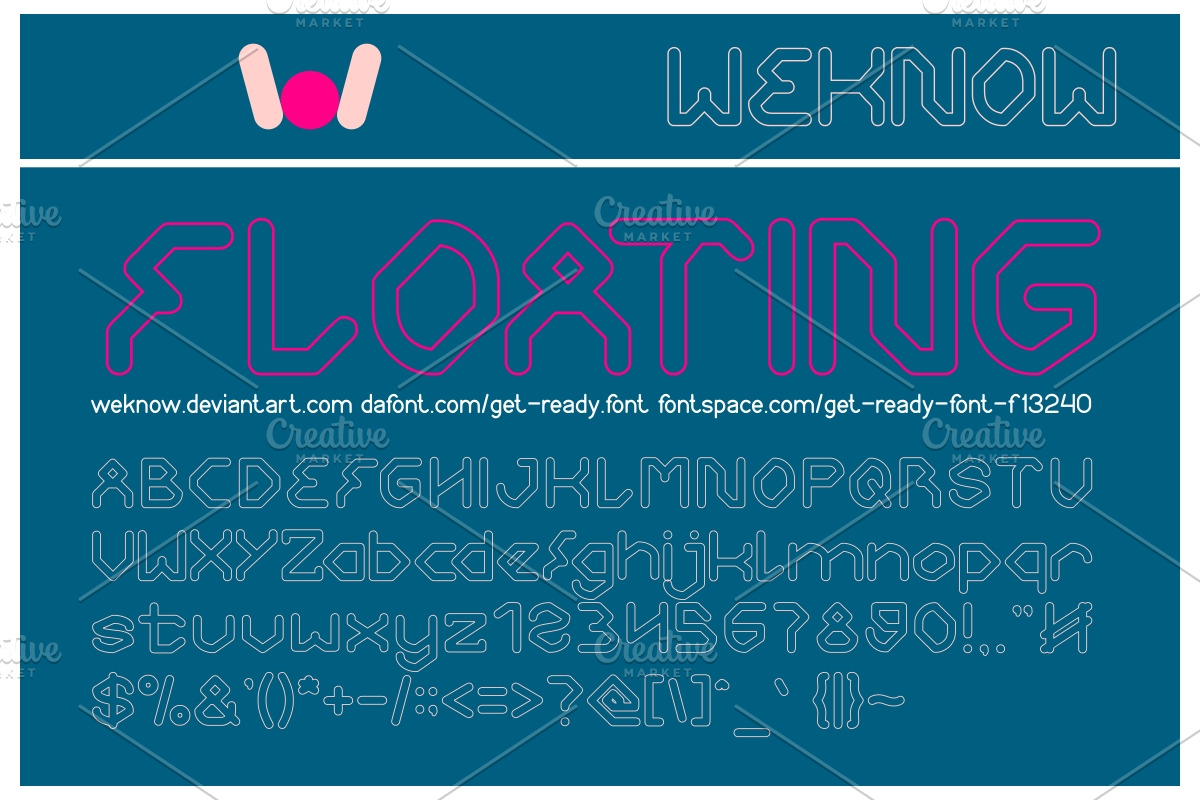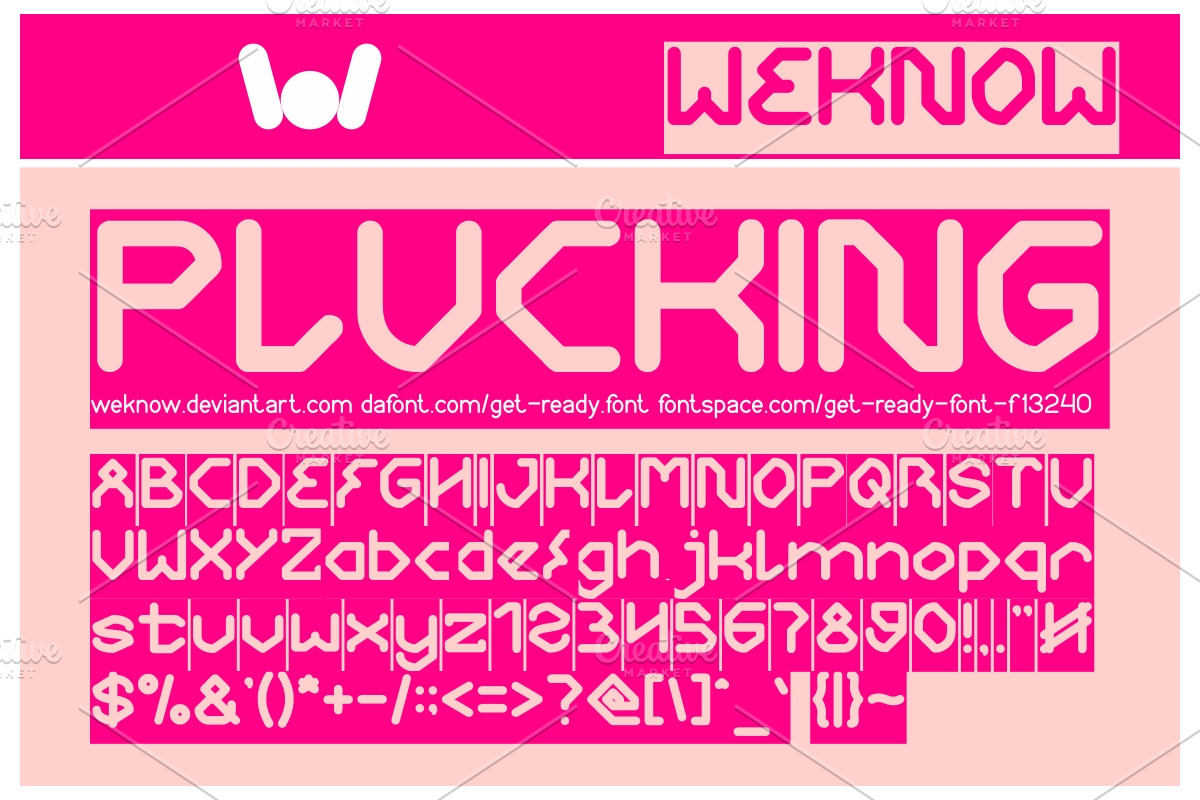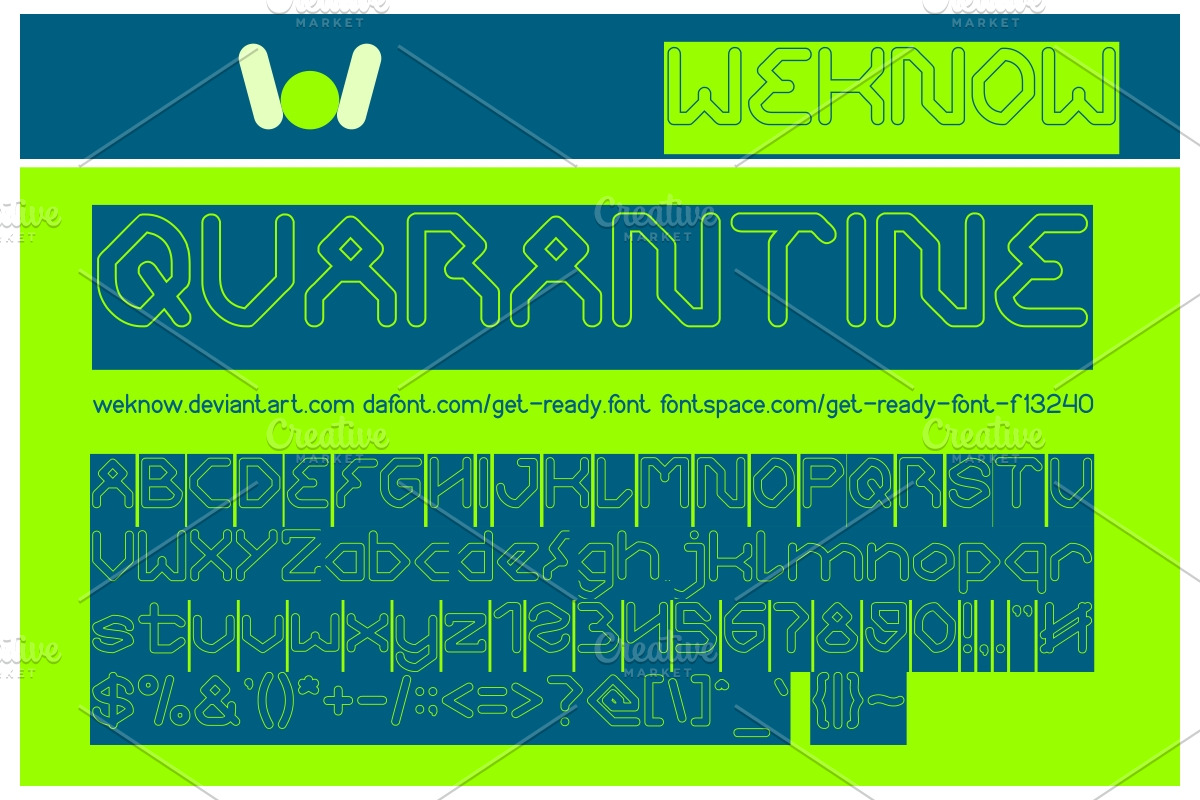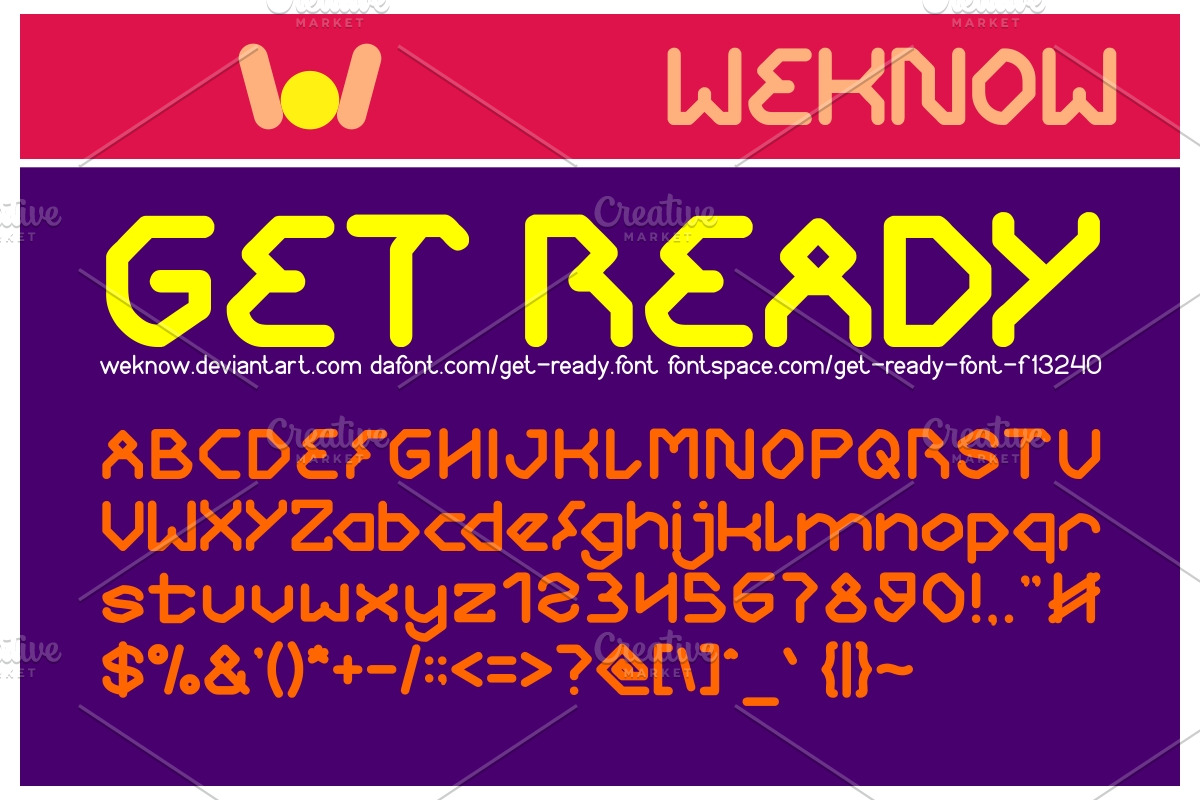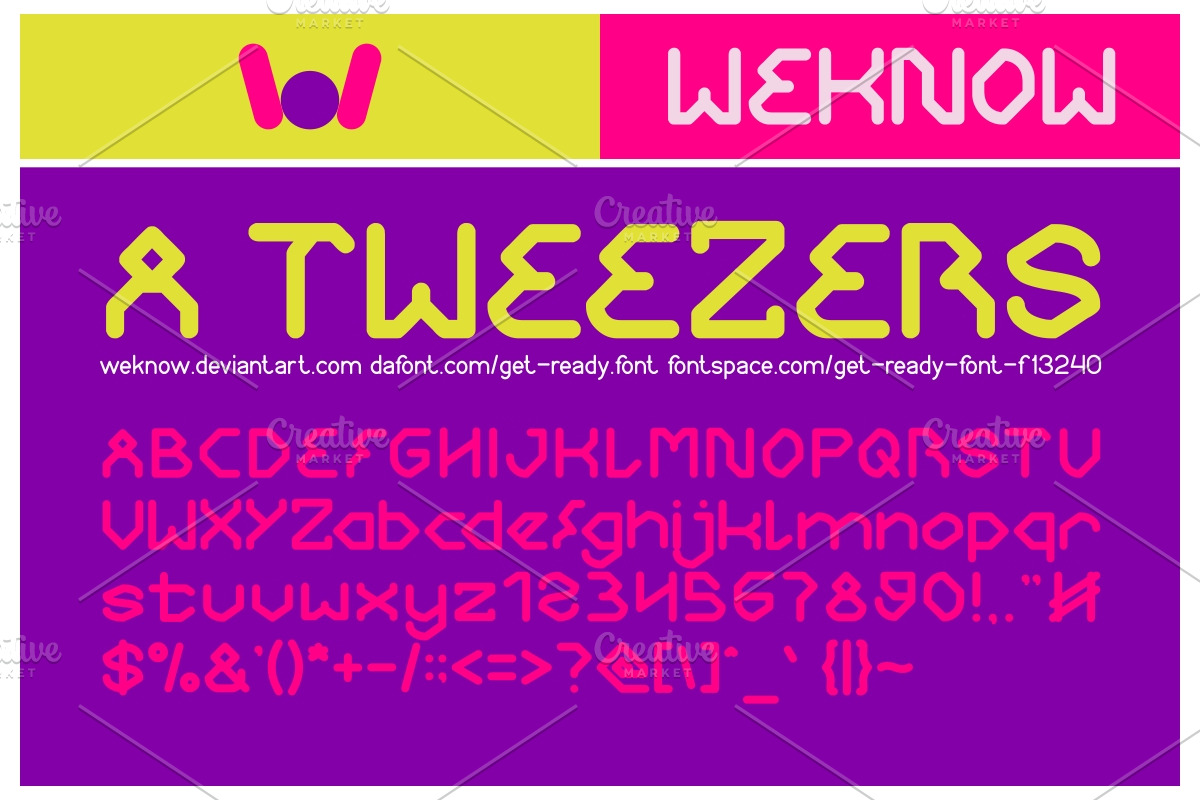
get ready font
available style: GET READY-Hollow Inverse, GET READY-Hollow, GET READY-Inverse, GET READY-Italic, GET READY-Light
Why get ready font is worth a look
get ready font by weknow fits naturally into Branding, posters, packaging, typography.